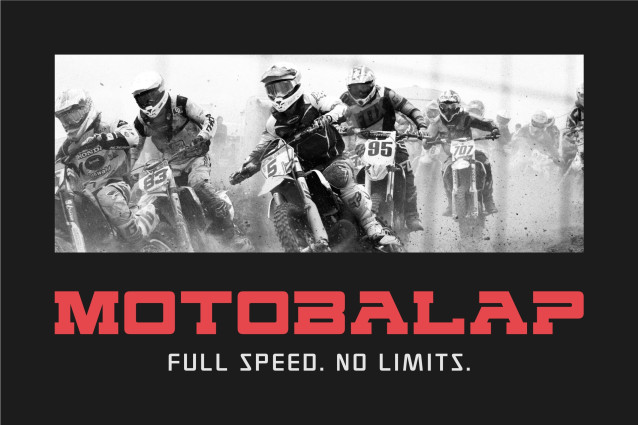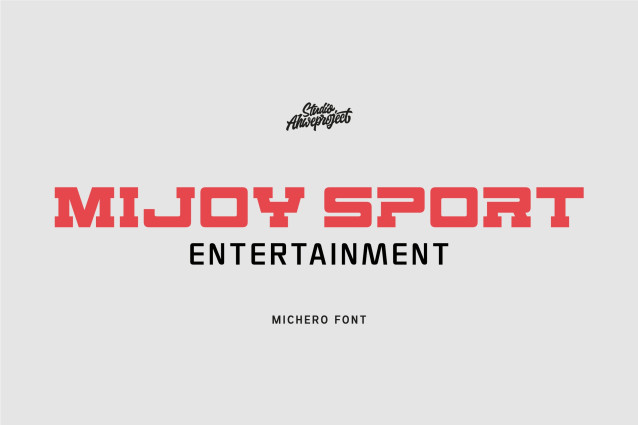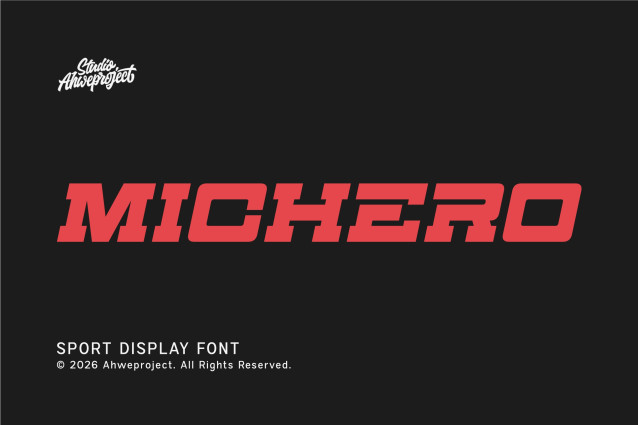
Michero is a bold and modern sport display font designed to bring energy, strength, and movement into your typography. Its letterforms combine wide, heavy proportions, geometric construction, sharp horizontal cuts, and subtly rounded corners, creating a distinctive appearance that stands out especially in large display sizes.
The overall style represents a feeling of speed, competition, power, confidence, and futuristic performance. The cut details across several characters create a visual sense of motion, while the solid structure gives the typeface a strong and athletic personality. This makes Michero especially suitable for designs inspired by motorsport, racing, sports, automotive culture, gaming, esports, and technology.
Michero works best for projects that need strong visual impact, including logos, headlines, sports branding, jersey designs, team graphics, racing posters, automotive graphics, merchandise, apparel, packaging, banners, thumbnails, game titles, esports branding, social media content, and promotional materials.
With its energetic and competitive character, Michero is a great choice for designers who need a sport font with a bold, fast, and powerful visual identity.